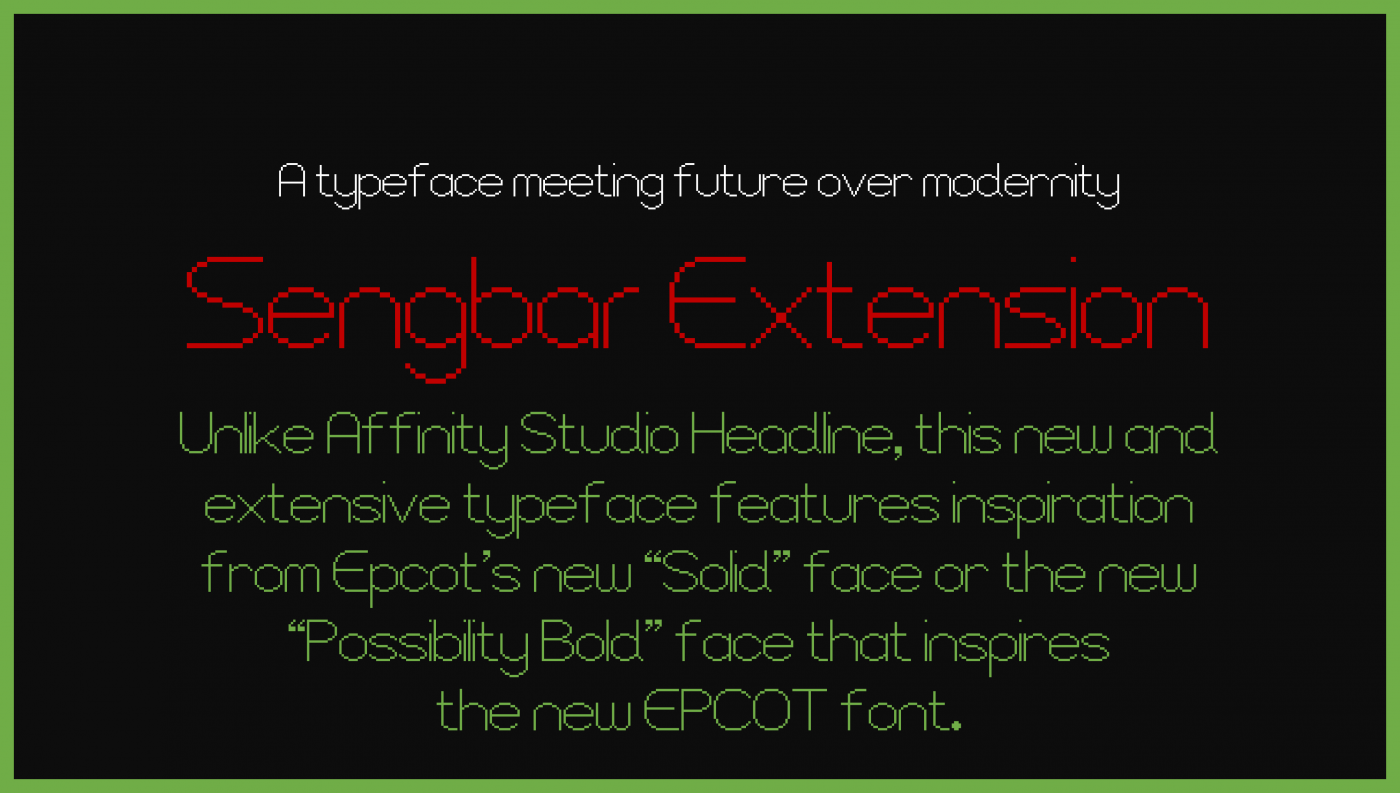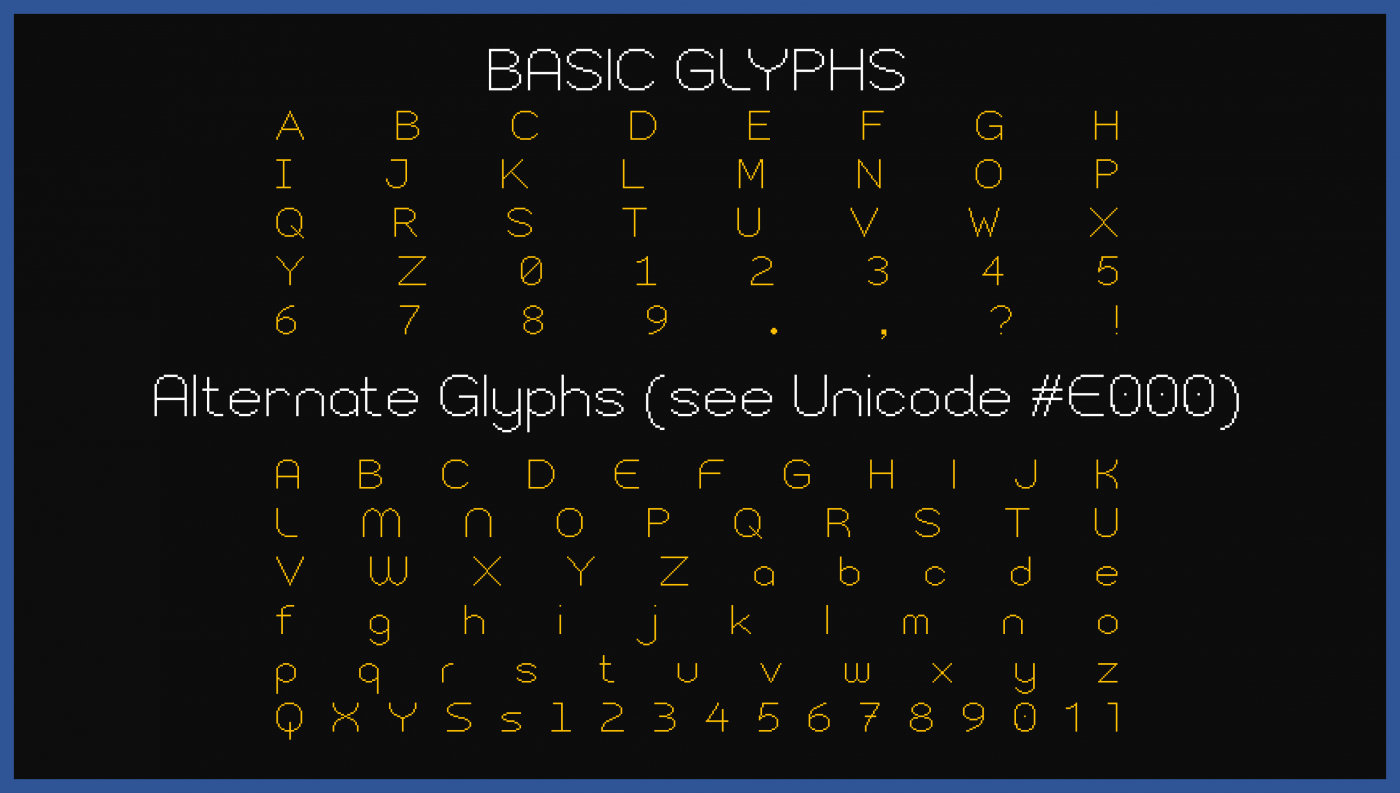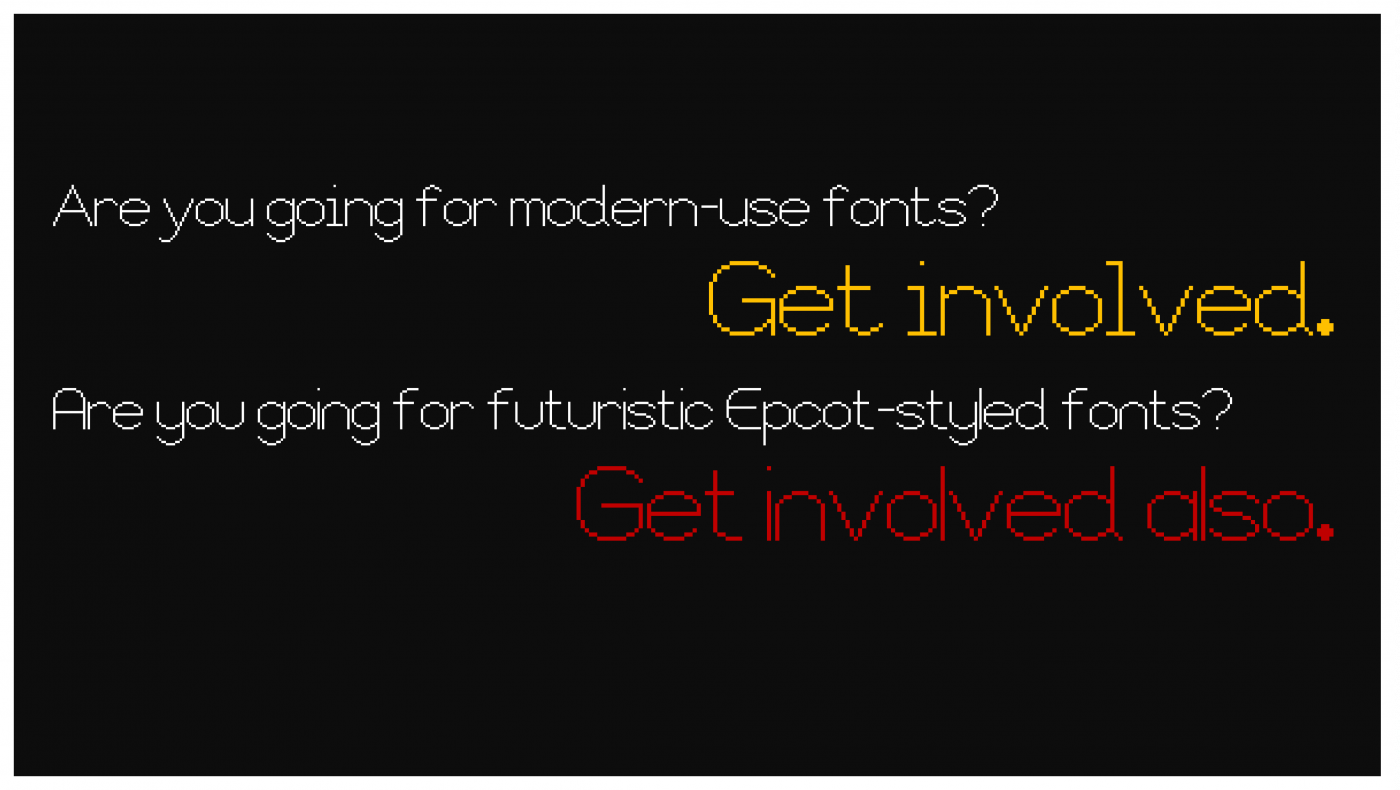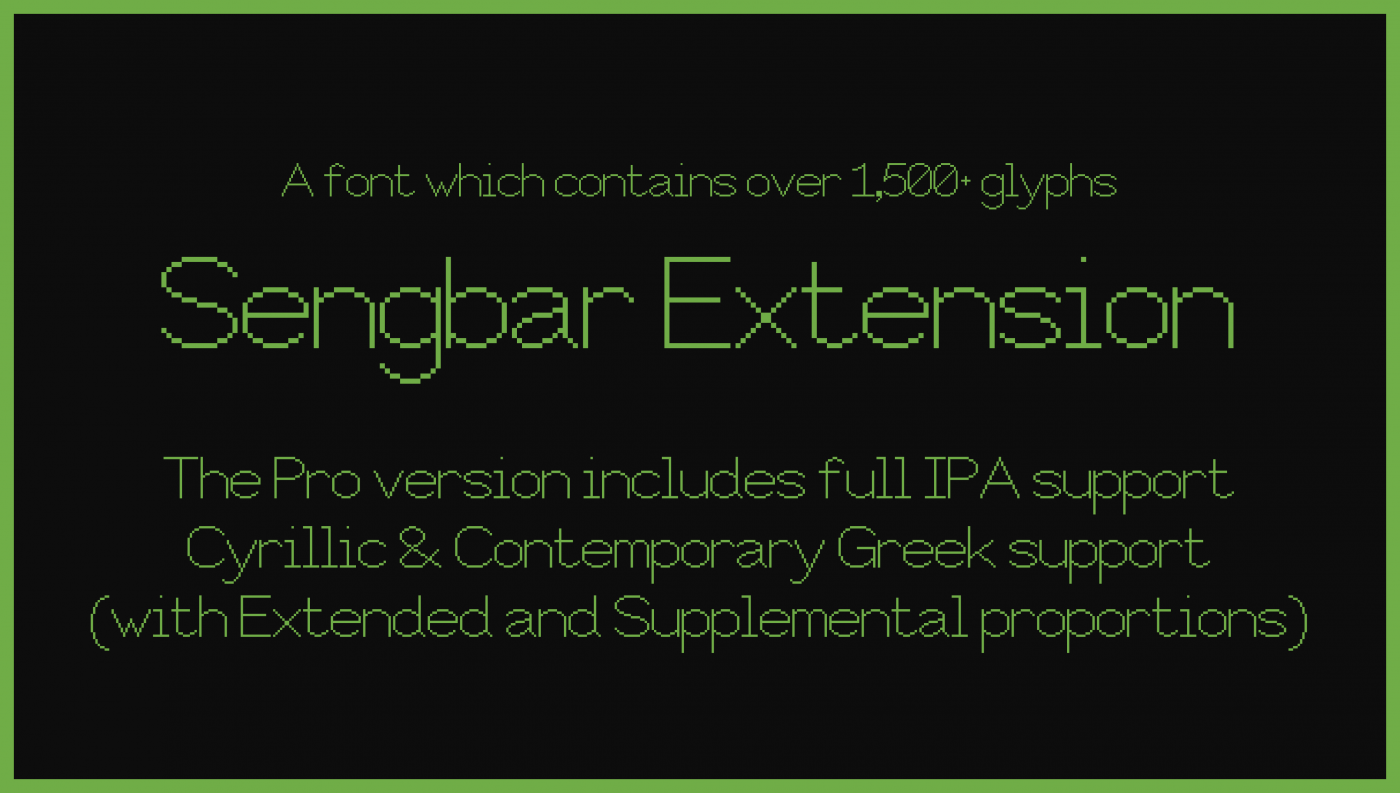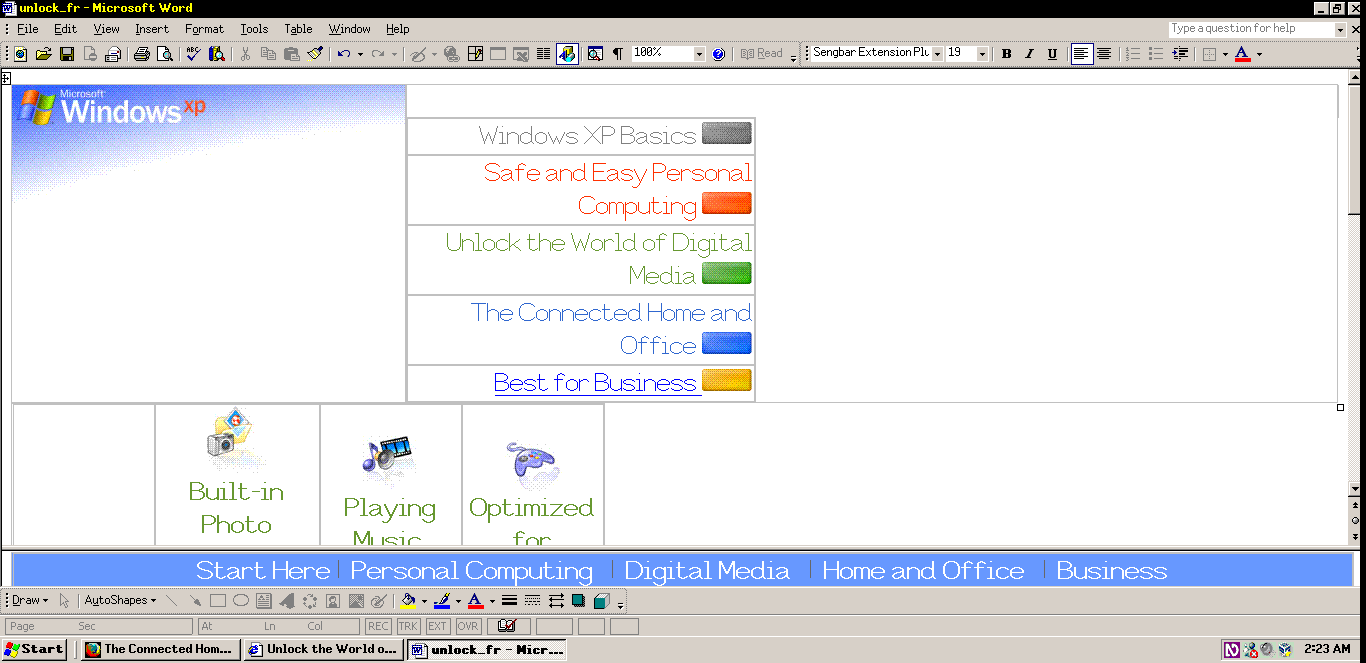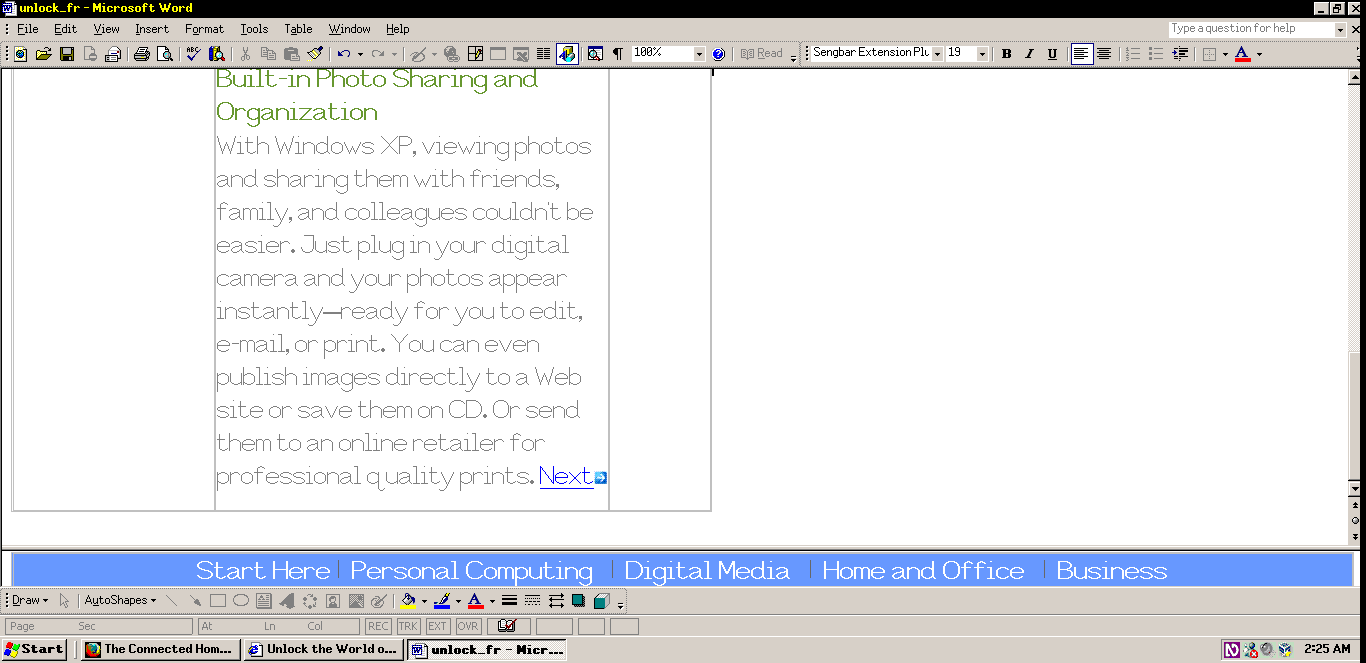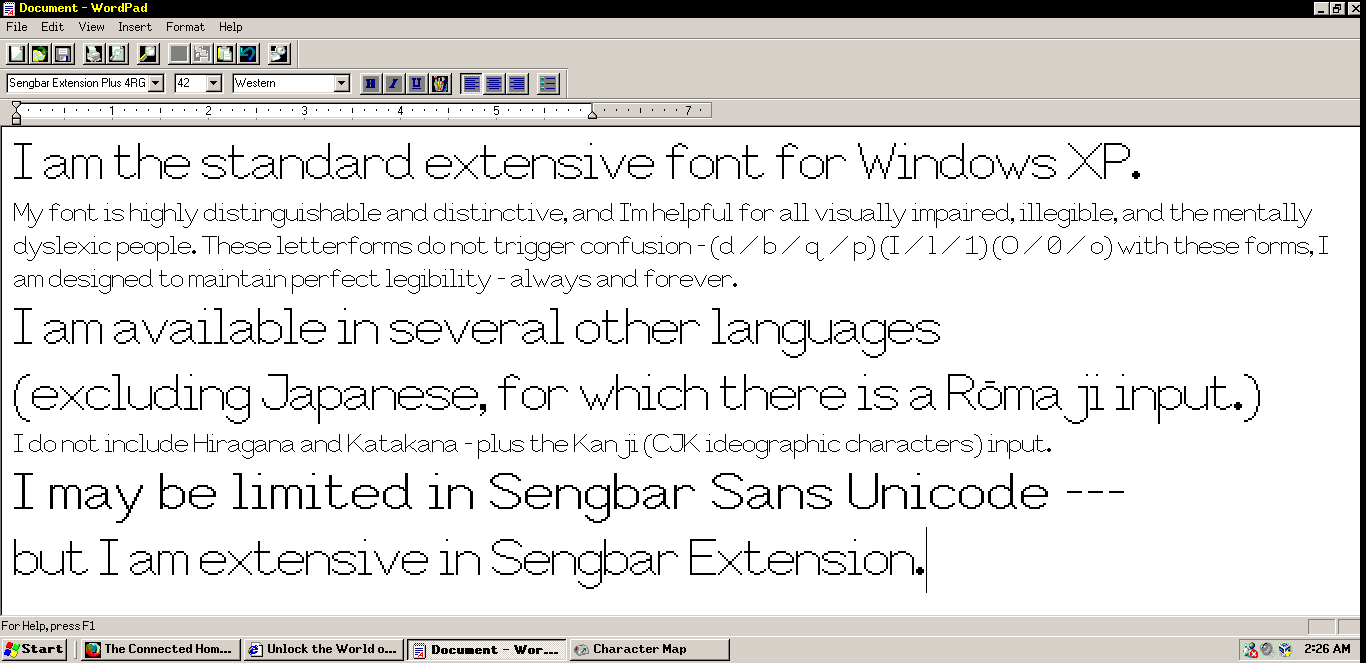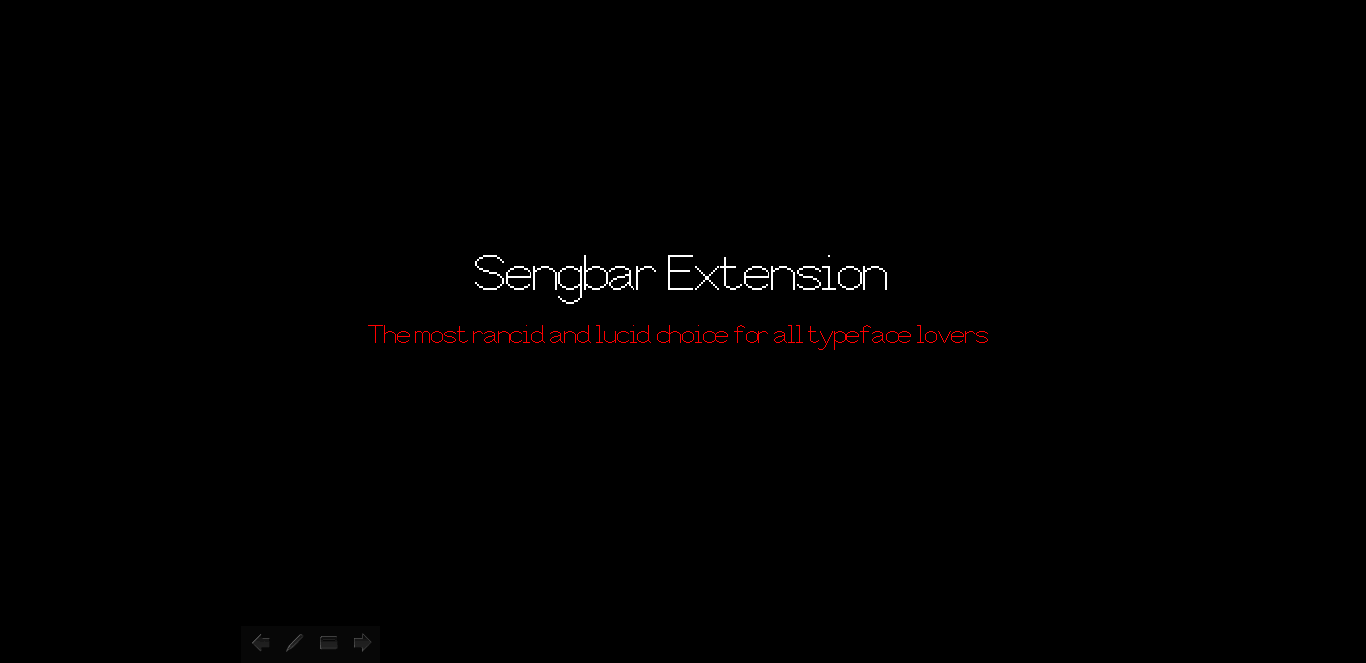
• A new typeface - Sengbar Extension Pro (or Sengbar Extension Plus), is also an extension font which contains over 1,000+ glyphs (the Mini version only has 972 glyphs in this website) (each with a full set of Basic Contemporary Greek, Cyrillic and Cyrillic Extended) and also some alternative stylistic glyphs with my second versions of both Q, X and Y (uppercase only), making it the very first to inspire Epcot's own typeface that replaces "World Bold" with something new. It may be titled as the alternative set of "New Epcot-styled" glyphs (usually at the start of the Unicode hex: At E000, located at the Private Use Area), depending on the form of the glyph. Keep in mind that diacritic marks will not work in the Private Use Area, unless if you really want the marks to show itself. It is very extensive and useful on some usages (including but is not limited to AWTL and OSMK usage).
This version has one or two restored glyphs despite being missing from it. The glyph which was missing was: Capital and lowercase Cyrillic letter Schwa.
Update: The APRG version modifies the Cyrillic Barred O through the Cyrillic extension unicode due to a mistake.
Reason of error or mistake: A Greek "Theta" (Θ, θ) is replacing the barred O.
("APRG" is abbreviated as "Also Per Restored Glyphs")
This was inspired by Shin'ya Tomimoto's Affinity Studio UI Headline (VGA, 24px), with a few added glyphs which makes it an extension font.
I gave it a try in the Full version, and I must say: In the Private Use Area, you've almost inspired Epcot's new font in a more pixelated way. Well done, Ryūtarō Ibano Kawaharasaki! I value your great performance!
Wow! Your font makes it more distinguishable and distinctive enough to read, even for low-visibility and dyslexic people which may find fonts very, very hard to read. Other than that, it's a neat improvement!
Here are the many screenshots containing the specified font (Sengbar Extension Pro).
(Hint: The screenshots I took came from a Windows XP Epsilon Edition operating system, on an Oracle VM VirtualBox 6.1 virtual machine.)